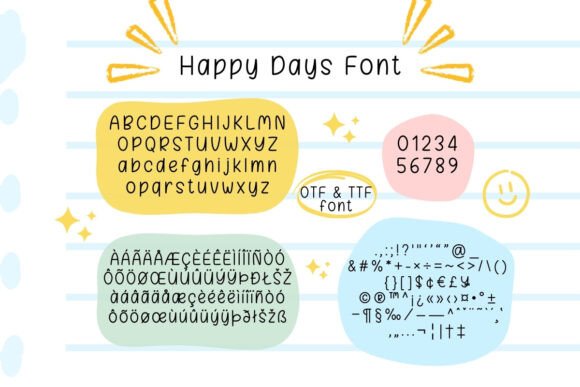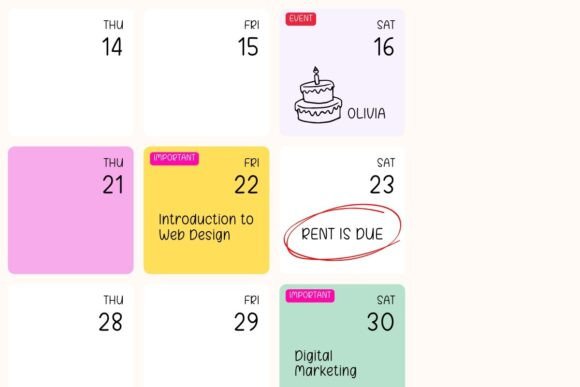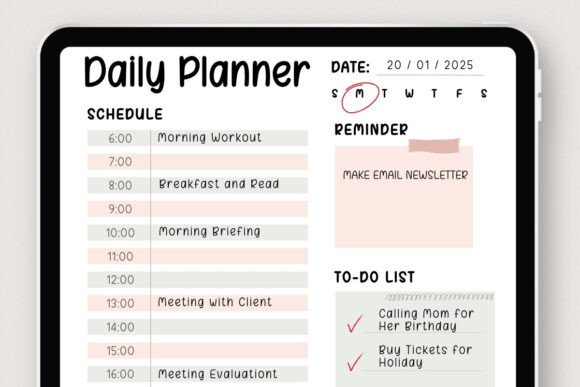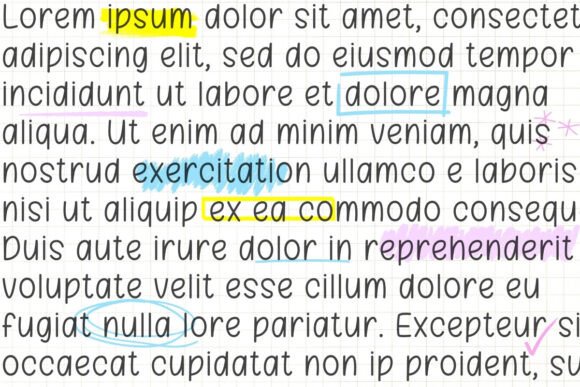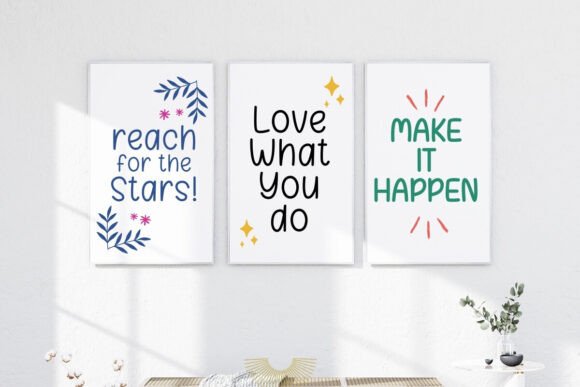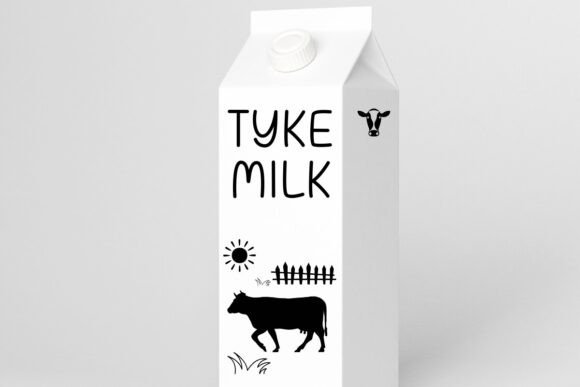
Bring Joy to Your Creations with the Happy Days Font
Do you remember the feeling of scribbling down your thoughts in a notebook as a child? The joy of creating something with your own hands, watching your ideas come to life, and feeling a sense of accomplishment? That’s exactly the feeling we want to capture with the Happy Days Font.
This adorable handwriting font is designed to add a touch of whimsy and fun to any project. Whether you’re working on a digital planner, crafting a journal, or designing a creative project, Happy Days Font is the perfect companion. Its clean and playful design makes it easy to read, and its cheerful vibe is guaranteed to brighten up your day. As a designer, you’ll appreciate the versatility of Happy Days Font, which can be used across various platforms, including GoodNotes, Procreate, and Canva.
Happy Days Font Key Features
- Font Family: Happy Days Font is a custom, hand-drawn font, with a unique and nostalgic feel.
- Unique Characteristics: The Happy Days Font features a distinctive, handwritten style with irregular letterforms and subtle flair, evoking a sense of nostalgia and playfulness.
Happy Days Font Review
Overall, I’d say the Happy Days Font is a fun and playful choice for those looking to add a nostalgic touch to their designs. Here are some pros and cons I’ve noticed:
- Unique aesthetic: The font has a distinct, vintage feel that’s reminiscent of the 50s and 60s.
- Highly legible: Despite its quirky design, the font is surprisingly easy to read, even at smaller sizes.
- Customization options: The font comes with a range of styles and weights, giving designers plenty of flexibility.
- Limited language support: The font may not be optimized for non-Latin scripts, which could be a problem for designers working on multilingual projects.
- Not ideal for body text: While the font is great for headlines and titles, it may not be the best choice for large blocks of text.
The Happy Days Font is a great choice for designers who want to add a touch of whimsy and nostalgia to their projects. While it may not be perfect for every use case, its unique aesthetic and high legibility make it a great option for headlines and titles. Just be mindful of its limitations when it comes to language support and body text.
For the most out of the Happy Days Font, use it for:
1. Retro-themed designs, such as posters, flyers, and social media graphics.
2. Creating a nostalgic or vintage feel in your designs.
3. Adding a touch of playfulness and whimsy to your text.
The Happy Days Font includes a standard character set with support for Latin languages, including English, Spanish, French, German, Italian, and many others. The font also includes a range of special characters, including punctuation, numbers, and symbols. However, it does not include support for non-Latin languages or extended character sets.